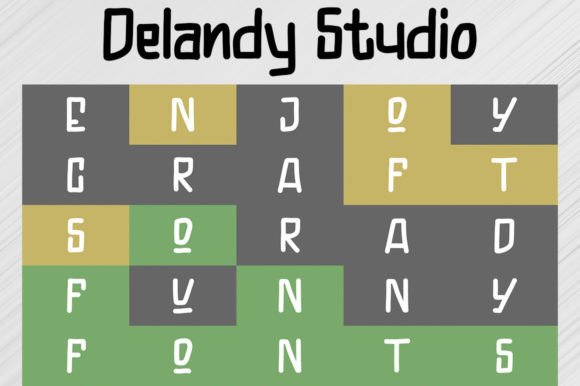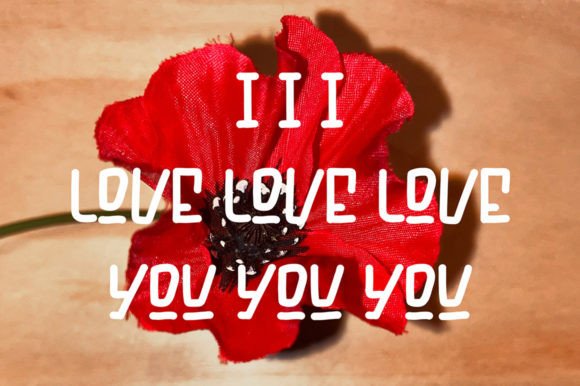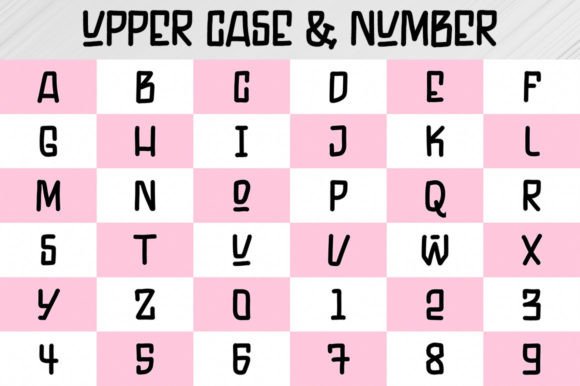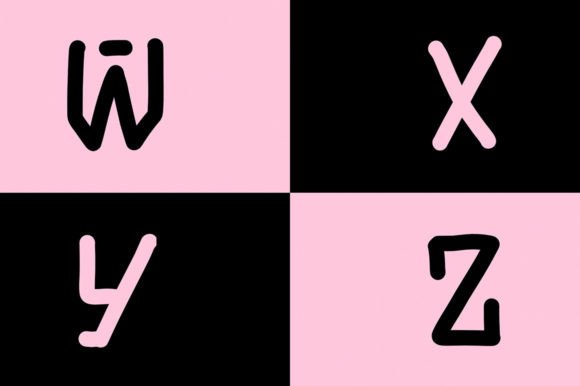
Introducing Channa Font: The Ultimate Choice for Fun and Creative Designs
Are you a designer, crafter, or educator looking for a font that embodies fun and authenticity? Look no further than Channa Font! This slick and cheerful display font is perfect for adding a playful touch to your designs, making it an ideal choice for children’s activities, school projects, and more.
What is Channa Font?
Channa Font is a unique and eye-catching display font that is sure to capture the attention of your audience. Its fun and cheerful vibe makes it perfect for designs that require a playful and youthful feel. Whether you’re creating a children’s book, a school project, or a fun craft, Channa Font is the perfect choice.
Key Features of Channa Font
- Fun and Authentic: Channa Font embodies the perfect blend of fun and authenticity, making it ideal for designs that require a playful touch.
- Slick and Cheerful: The font’s sleek and cheerful design makes it perfect for capturing the attention of your audience.
- Display Font: Channa Font is a display font, making it perfect for headlines, titles, and other design elements that require a bold and eye-catching font.
Uses for Channa Font
Channa Font is a versatile font that can be used in a variety of design projects, including:
- Children’s Activities: Channa Font is perfect for creating fun and engaging children’s activities, such as coloring pages, worksheets, and activity sheets.
- School Projects: The font’s fun and playful vibe makes it ideal for school projects, such as posters, presentations, and reports.
- Crafts: Channa Font can be used to add a playful touch to craft projects, such as scrapbooking, card making, and DIY projects.
- Digital Designs: The font can also be used in digital designs, such as social media graphics, blog posts, and website headers.
Tips for Using Channa Font
Here are some tips for getting the most out of Channa Font:
- Use it as a Headline Font: Channa Font is perfect for use as a headline font, adding a bold and eye-catching touch to your designs.
- Pair it with Other Fonts: Experiment with pairing Channa Font with other fonts to create a unique and visually appealing design.
- Use it in Color: Channa Font looks great in color, so don’t be afraid to experiment with different colors and color combinations.
| Author | Delandy Studio |
Channa Font is a fun and versatile display font that is perfect for adding a playful touch to your designs. Its slick and cheerful vibe makes it ideal for children’s activities, school projects, and crafts. With its free download and ease of use, Channa Font is a great addition to any designer’s or crafter’s arsenal. So why wait? Download Channa Font today and take your designs to the next level!